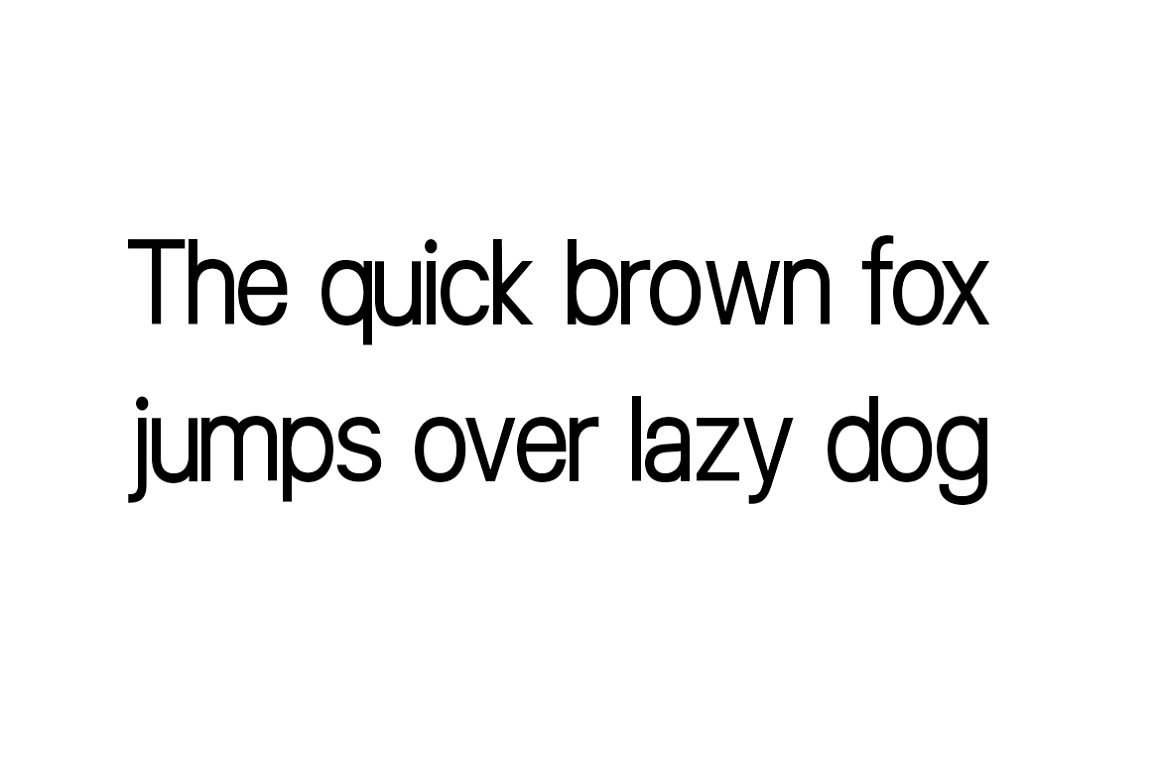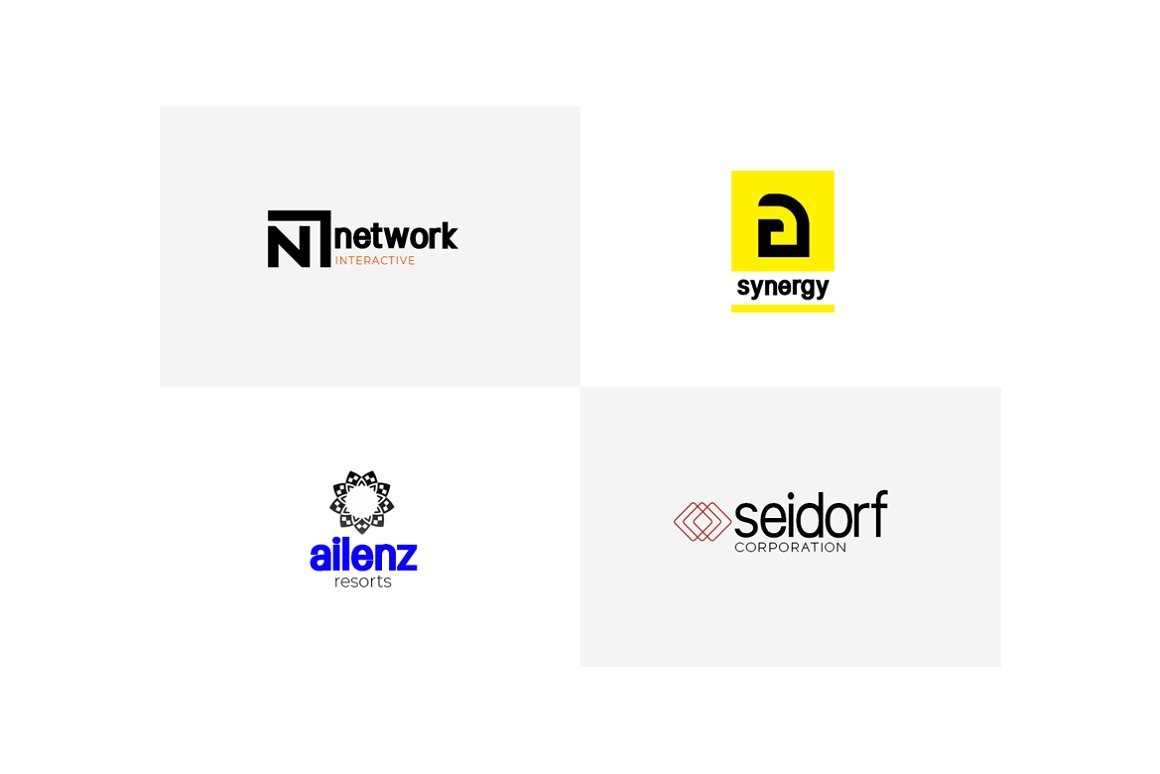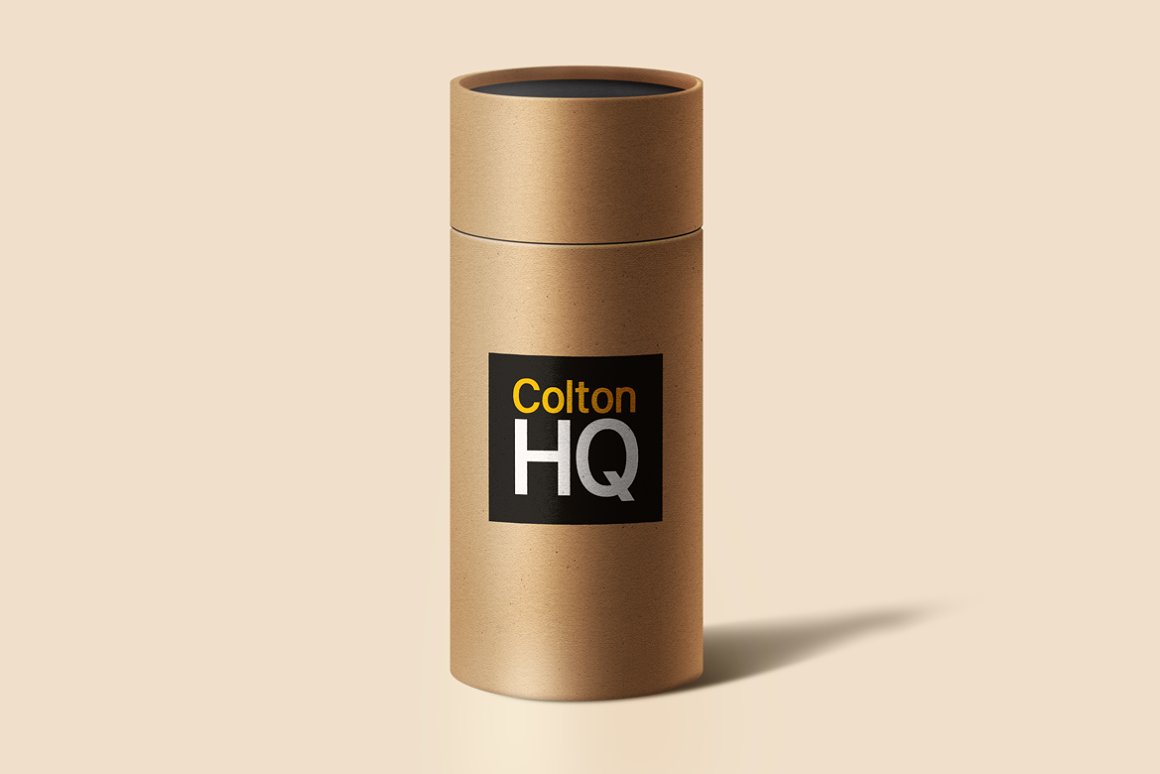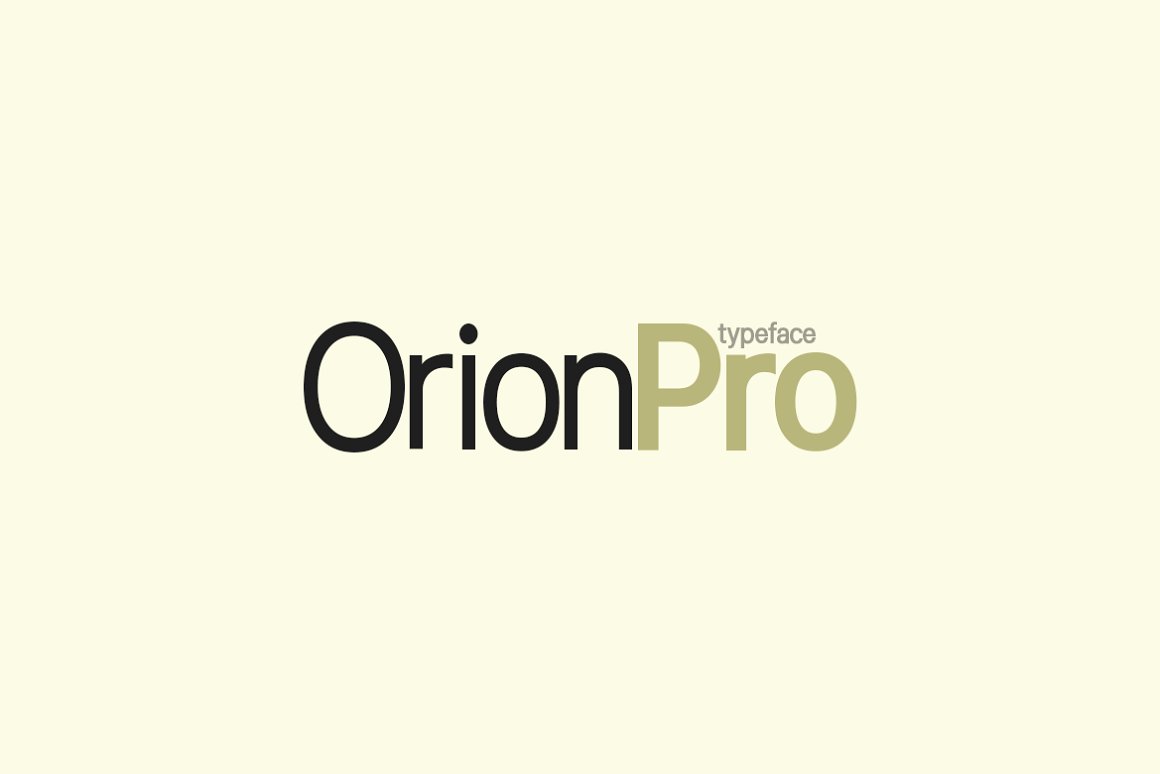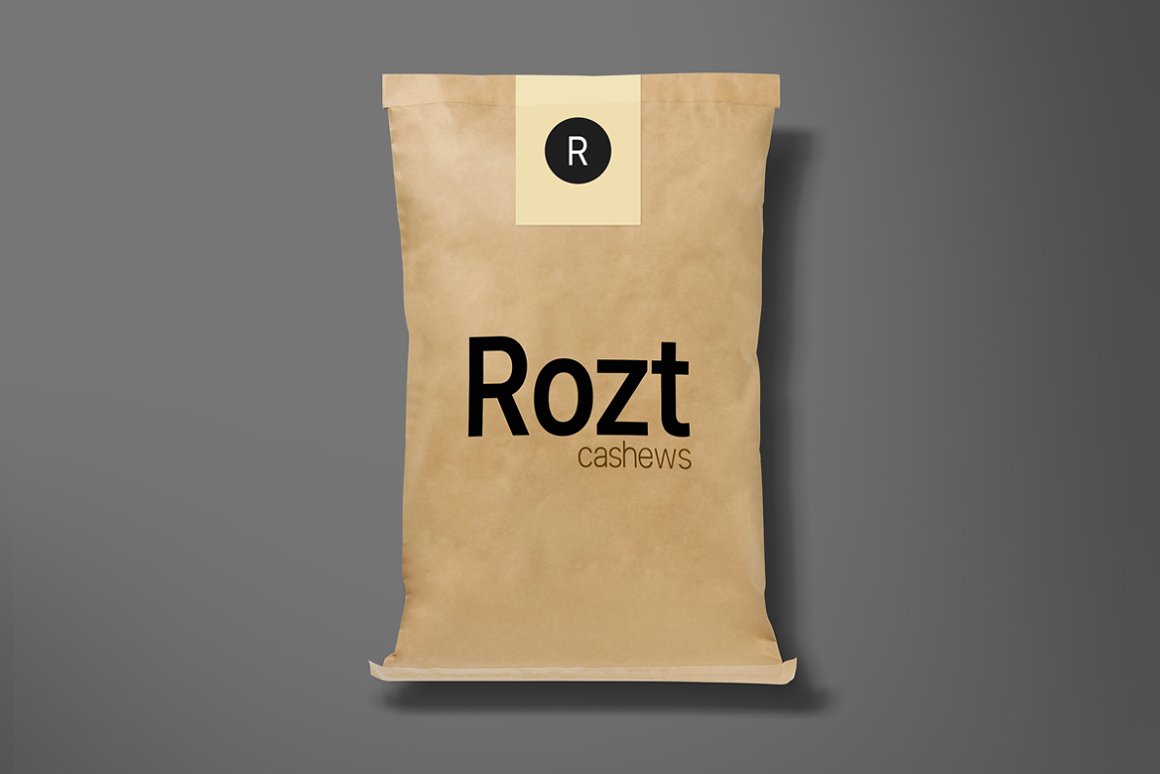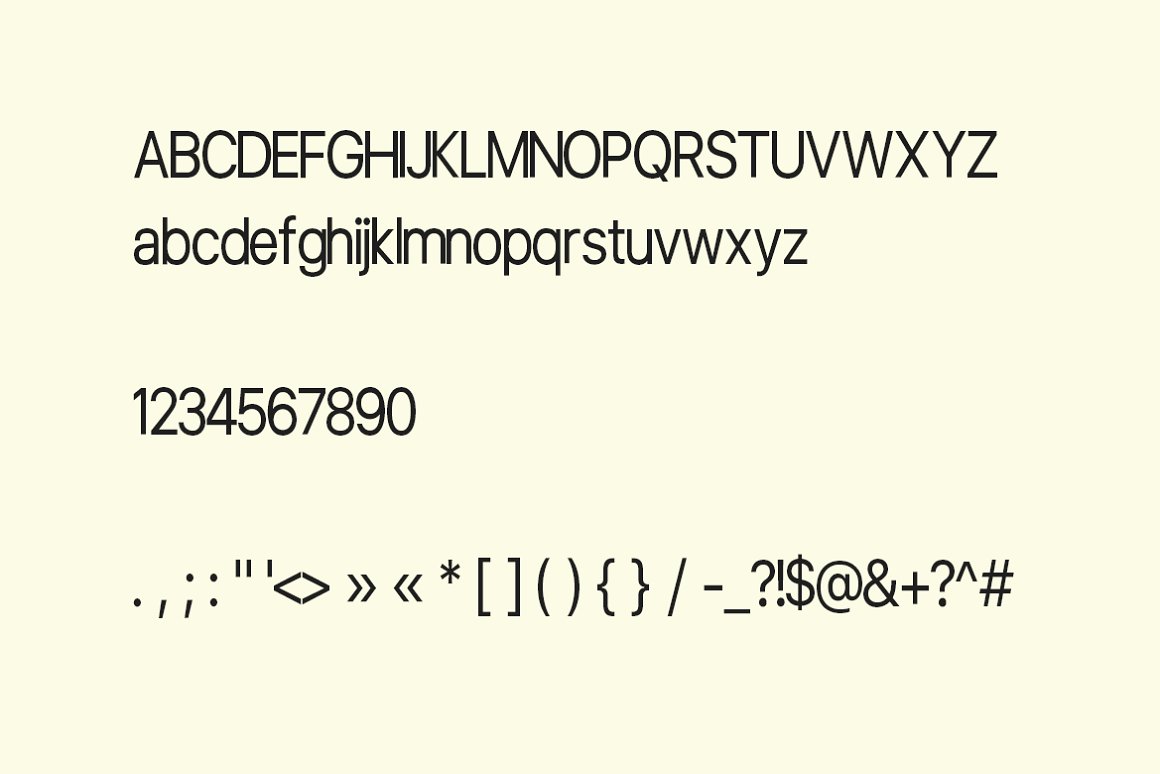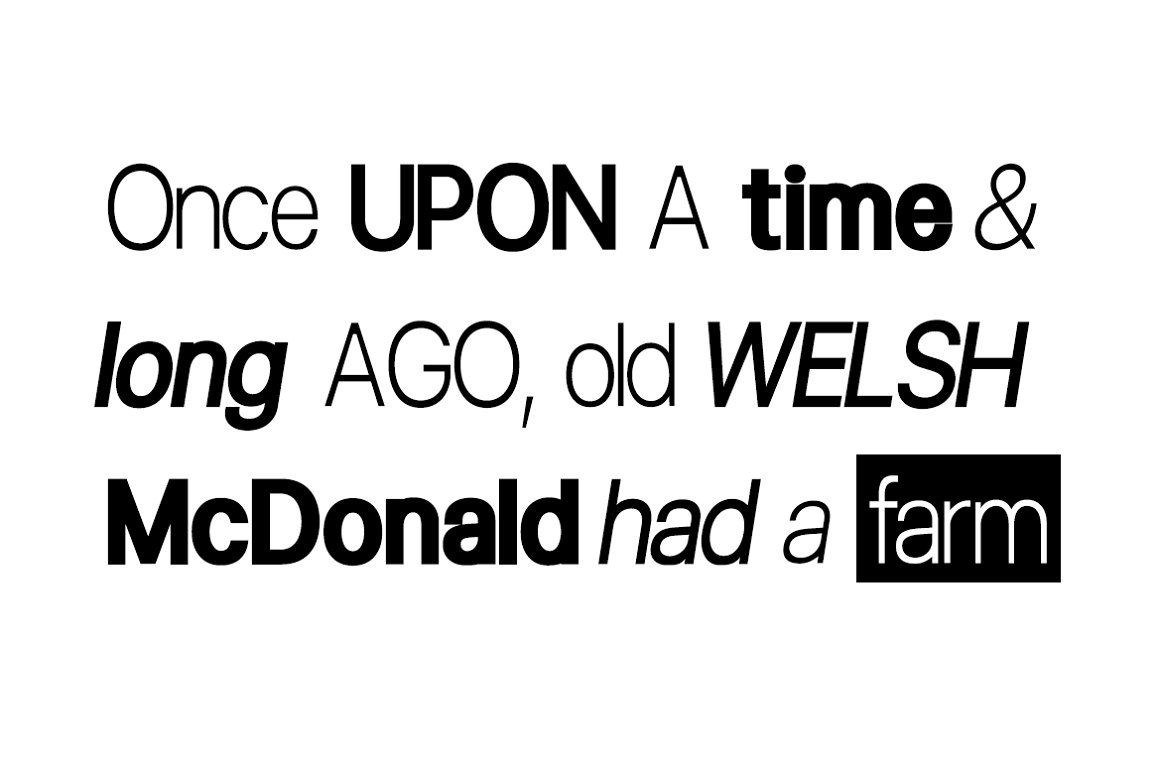
Orion Pro Modern Sans-Serif Typeface
Orion Pro - Modern Sans-Serif typeface inspired from renowned Swiss typefaces. Perfectly suitable for logotypes, headlines, branding, marketing graphics, corporate identities, all web & print purposes.
This pack comes with a total of 12 fonts:
6 Weights (Light / Regular / Semi Bold / Bold / Extra Bold / Black) 6 Weights of Italic versions (Light / Regular / Semi Bold / Bold / Extra Bold / Black)